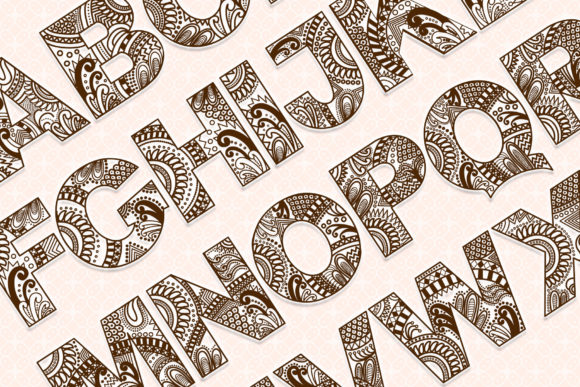
Introducing Batik Worldwide, the font that captures the essence of bold and captivating typography. Inspired by the vibrant energy of film posters, this display font exudes a sense of adventure and intrigue, inviting you to embark on a visual journey like no other.
With its strong, chunky letters and a hint of playfulness, Batik Worldwide commands attention and makes a lasting impression. Its unique character adds a touch of intrigue and excitement to any project, making it the perfect choice for those seeking to create truly memorable designs.
Step into the world of Batik Worldwide and discover the power of authentic storytelling. Let your creativity soar as you explore the endless possibilities this font offers. Whether you're crafting film posters, eye-catching headlines, or captivating social media posts, Batik Worldwide will elevate your designs to new heights.
Unleash the full potential of your creative vision with Batik Worldwide. Its versatility knows no bounds, allowing you to create designs that resonate with your audience and leave a lasting impact. From vintage-inspired posters to modern and edgy graphics, Batik Worldwide seamlessly adapts to your unique style, adding a touch of magic to every project.
Immerse yourself in the world of Batik Worldwide and experience the transformative power of typography. Let this font ignite your imagination and take your designs to the next level. Embrace the spirit of adventure and intrigue, and embark on a creative journey that will leave your audience captivated.